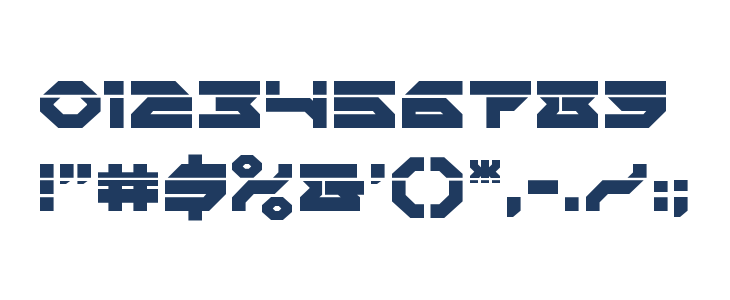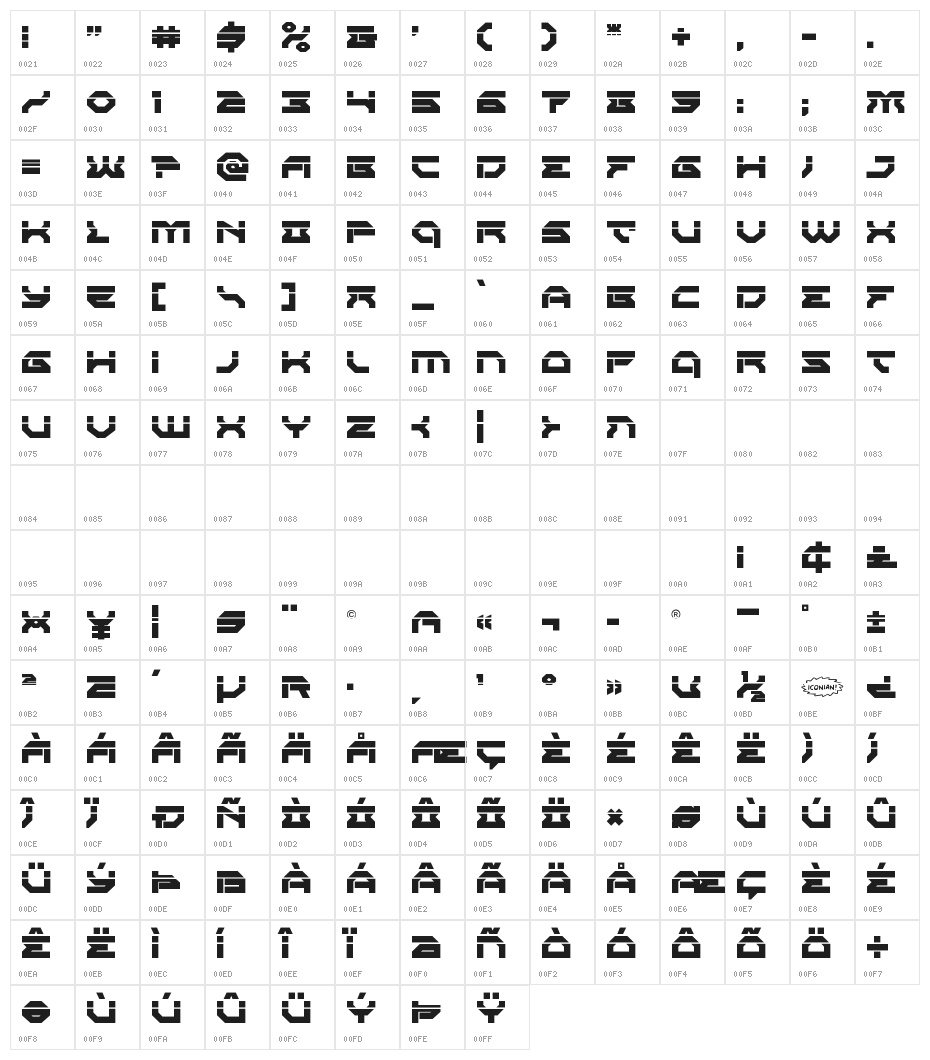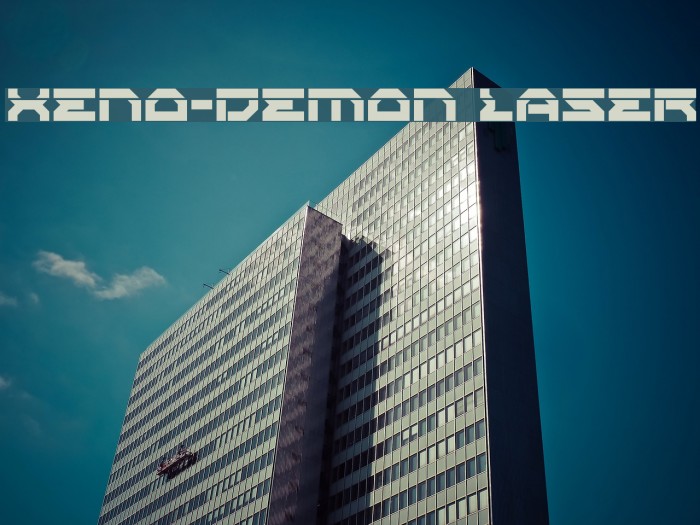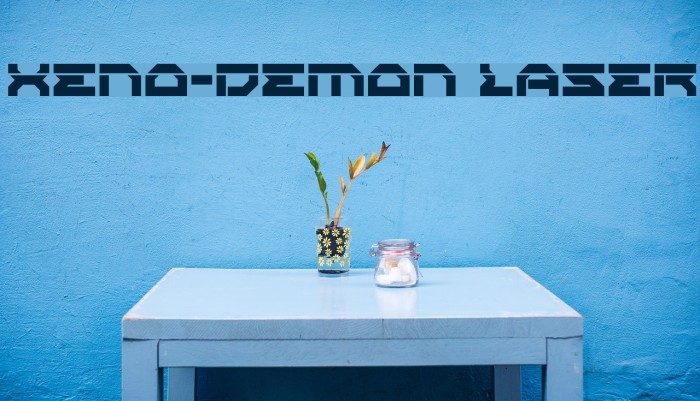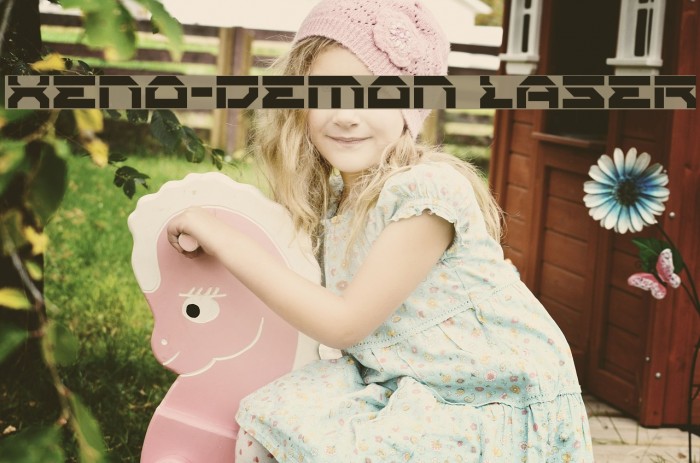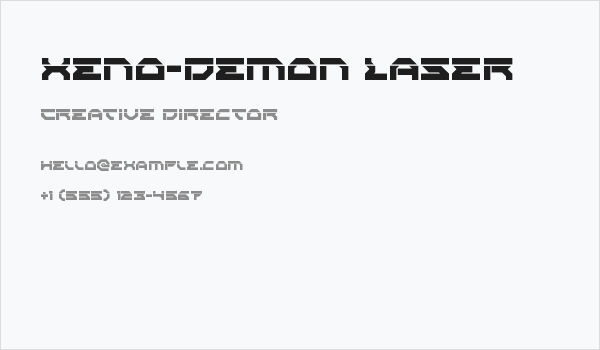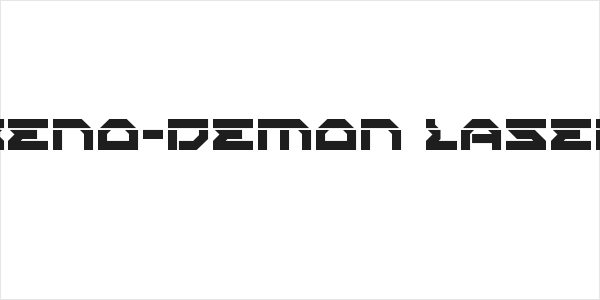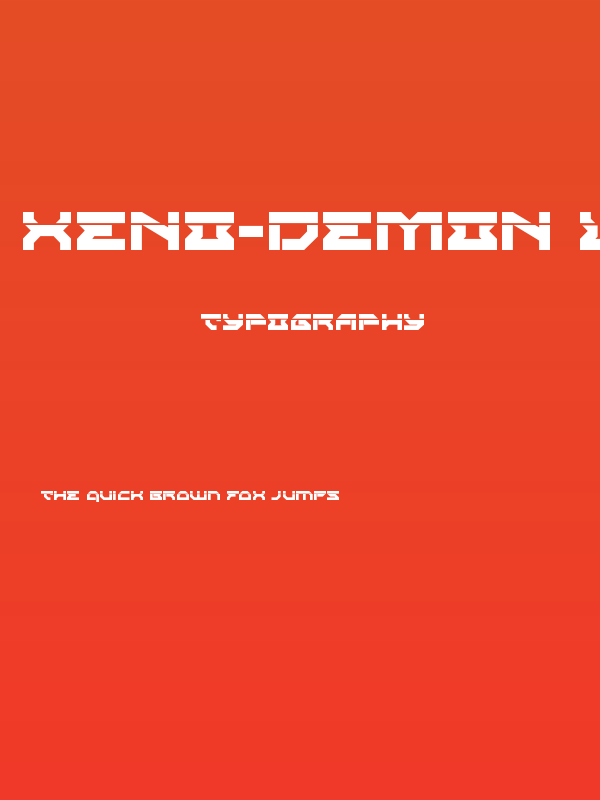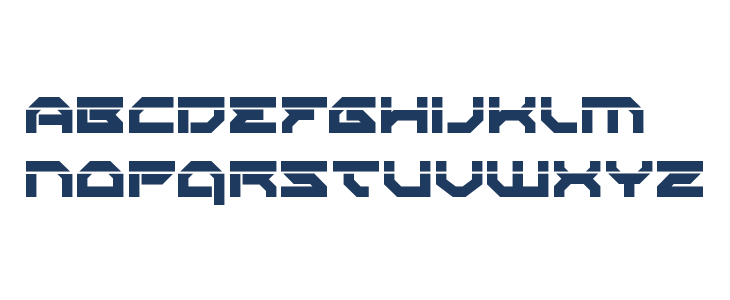
Xeno-Demon Laser Font
Xeno-Demon Laser Description
This font features a futuristic and angular design, characterized by its sharp edges and geometric shapes. The letters are bold and striking, with a distinct sci-fi aesthetic that makes them stand out. The uppercase and lowercase letters maintain a consistent style, with each character displaying a unique combination of straight lines and angles. The numbers and special characters follow the same design principles, ensuring a cohesive look across all glyphs. This font is ideal for projects that require a modern and edgy appearance, such as video game titles, tech-related branding, or science fiction themes.
Proposed ProjectsIdeal for video game titles, tech branding, and sci-fi themed designs.